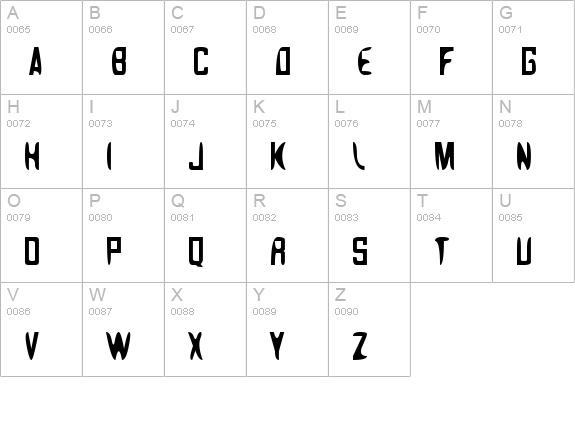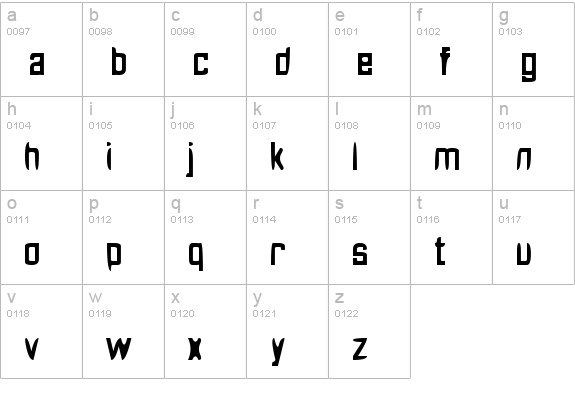
Noasarck Quattro Font Details
Introducing the elegant and versatile Noasarck Quattro font, a modern typeface that exudes sophistication and style. With its clean lines and unique design elements, Noasarck Quattro is perfect for a wide range of projects, from branding to editorial design. The font features a sleek and contemporary look that will make your text stand out. What's even better is that Noasarck Quattro is available for free download at FontsMarket.com. This means you can easily access this beautiful font and use it in your personal and commercial projects without any cost. So why wait? Elevate your designs with the timeless elegance of Noasarck Quattro today.